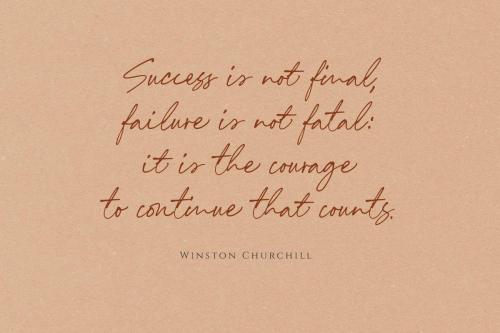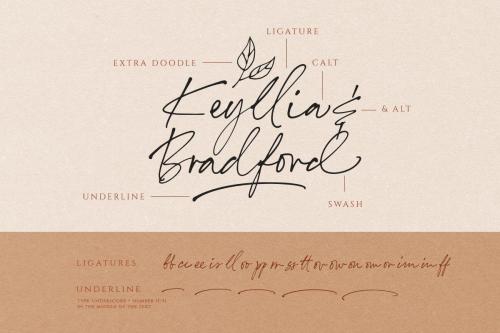
Shutten Reason Font Duo
Shutten Reason is font duo handwritten script font and sans with handlettering Brush Style. Suitable for design, element design, wedding, event, t-shirt, logo, badges, sticker, and awesome work, etc…
Standard Ligature for Script: ss, rr, mm, nn
Discreationary Ligatures for Script: al,il,ul,el,ol,at,it,ut,et,ot,ak,ik,uk,ek,ok,ah,ih,uh,eh,oh,tt.
Multilanguage Support Script And Sans: ÀÁÂÃÄÅÆÇÈÉÊËÌÍÎÏÐÑÒÓÔÕÖØÙÚÛÜÝßàáâãäåæçèéêëìíîïðñòóôõöøùúûüýÿ
• Designer: FHFont